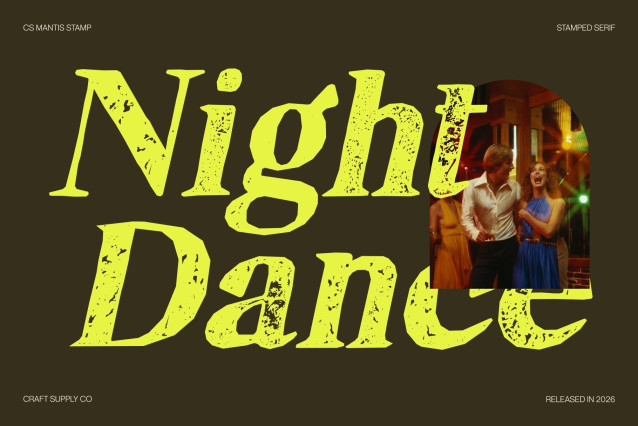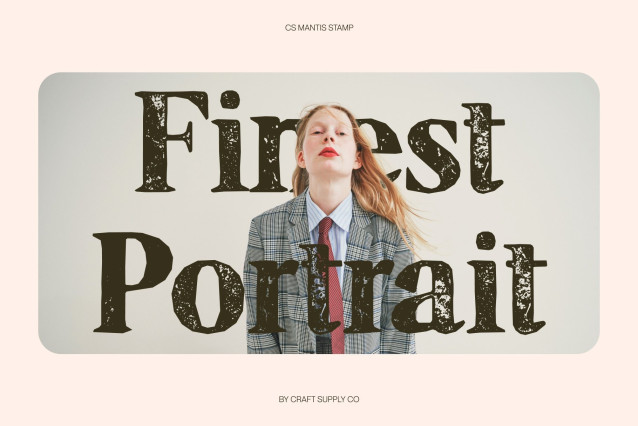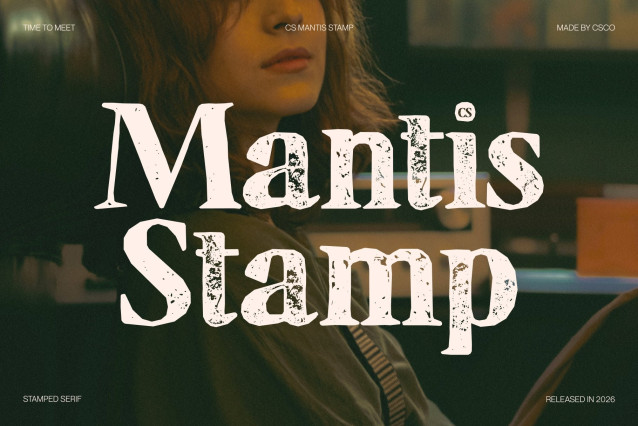
CS Mantis Stamp Font
CS Mantis Stamp – Reverse Contrast Serif Font: Where Classic Form Meets Modular Expression
Distinctive Structure with Modular Aesthetics
This is a reverse contrast serif font that reimagines traditional letterforms with a bold and unconventional approach. Its unique contrast—where horizontal strokes appear heavier than vertical ones—creates a striking visual rhythm that instantly stands out. Combined with a modular aesthetic, each character feels structured yet experimental, offering a fresh take on classic serif design.
Textured Stamp Effect with Vintage Character
This font introduces a tactile, slightly distressed texture that evokes the charm of traditional printmaking. This effect adds depth and authenticity, giving the font a handcrafted feel while reinforcing its connection to classic design movements.